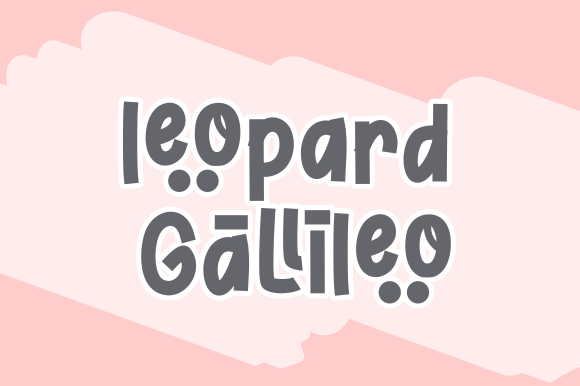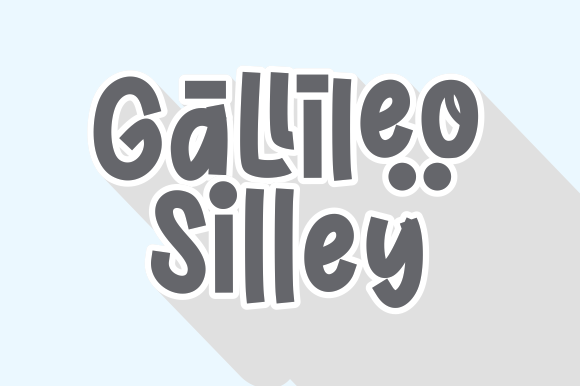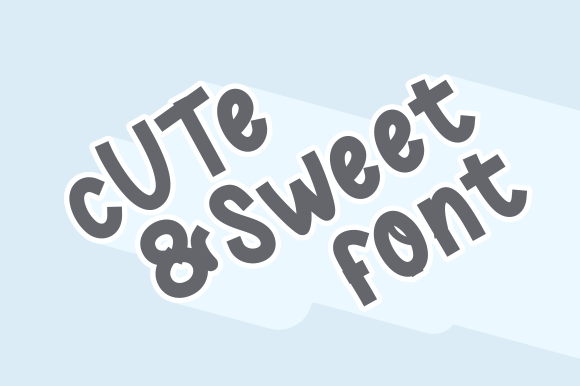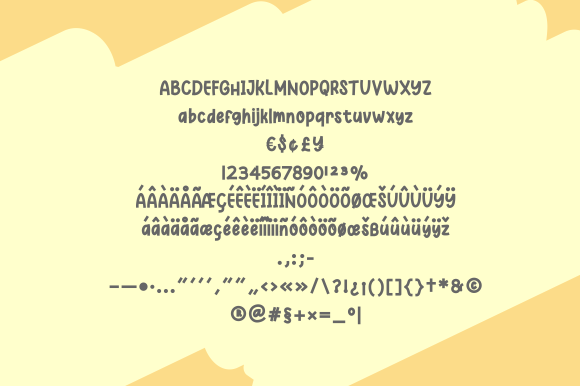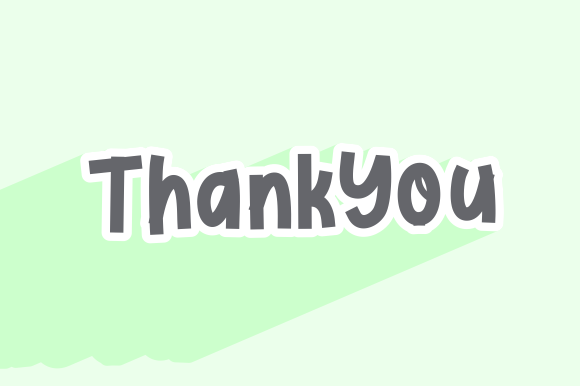
Meet Gallileo Silley Font, a charming display font designed to bring a touch of whimsy to your branding, packaging, invitations, and more. With its playful, hand-drawn feel, Gallileo Silley Font is the perfect addition to any design project. Whether you’re working on a t-shirt design, a label, or a poster, this font is sure to captivate your audience and leave a lasting impression.
- Unique Characteristics: This font has a unique, handwritten feel with subtle flourishes and irregularities, making it perfect for creative and artistic projects.
Gallileo Silley Font Review
Overall, I was quite excited to work with the Gallileo Silley Font, but as with any font, it has its strengths and weaknesses.
- Unique design: The Gallileo Silley Font has a quirky, playful vibe that can add a lot of personality to designs.
- Legibility: The font is surprisingly easy to read, considering its unconventional design.
- Customization options: The font comes with a range of stylistic sets and variations that can be used to create a cohesive look.
- Limited range: The Gallileo Silley Font may not be suitable for formal or professional designs, as it can come across as too playful or childish.
- Difficult to use in small sizes: The font’s unique design can make it difficult to read in smaller sizes, which may limit its use in certain contexts.
- Lack of consistency: The font’s variations can sometimes feel inconsistent, which can make it challenging to create a cohesive design.
The Gallileo Silley Font is a great choice for designers looking to add some personality to their designs, but it may not be suitable for all projects. With careful selection and use, this font can be a valuable addition to any design toolkit.
The Gallileo Silley Font is well-suited for a variety of creative projects, including:
- Designing branding materials, such as logos and business cards.